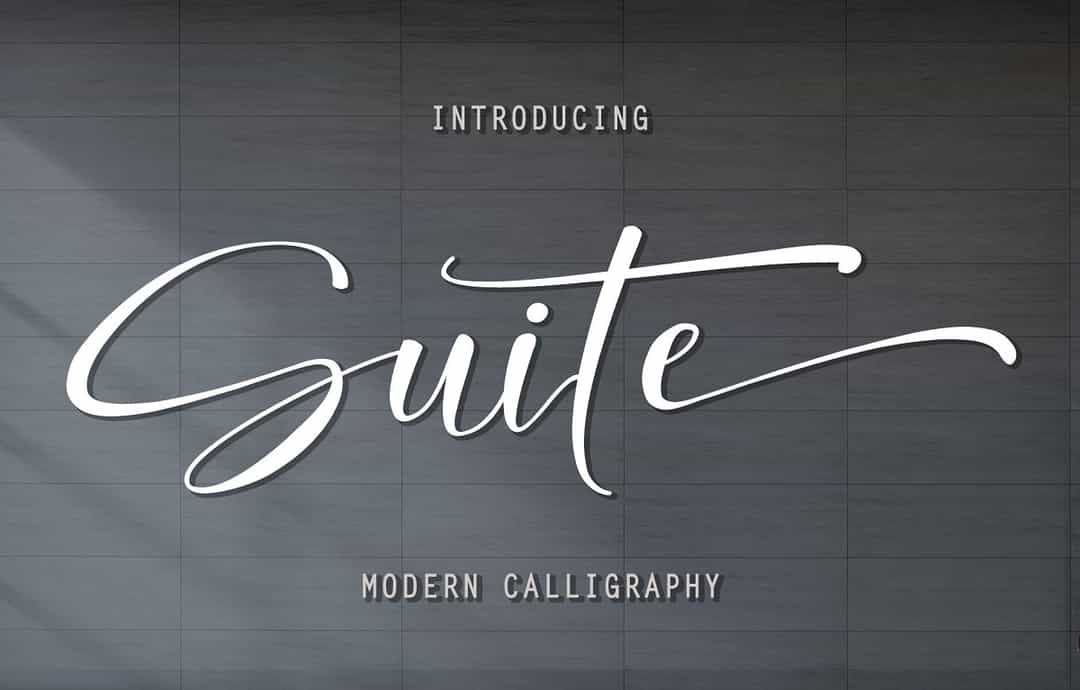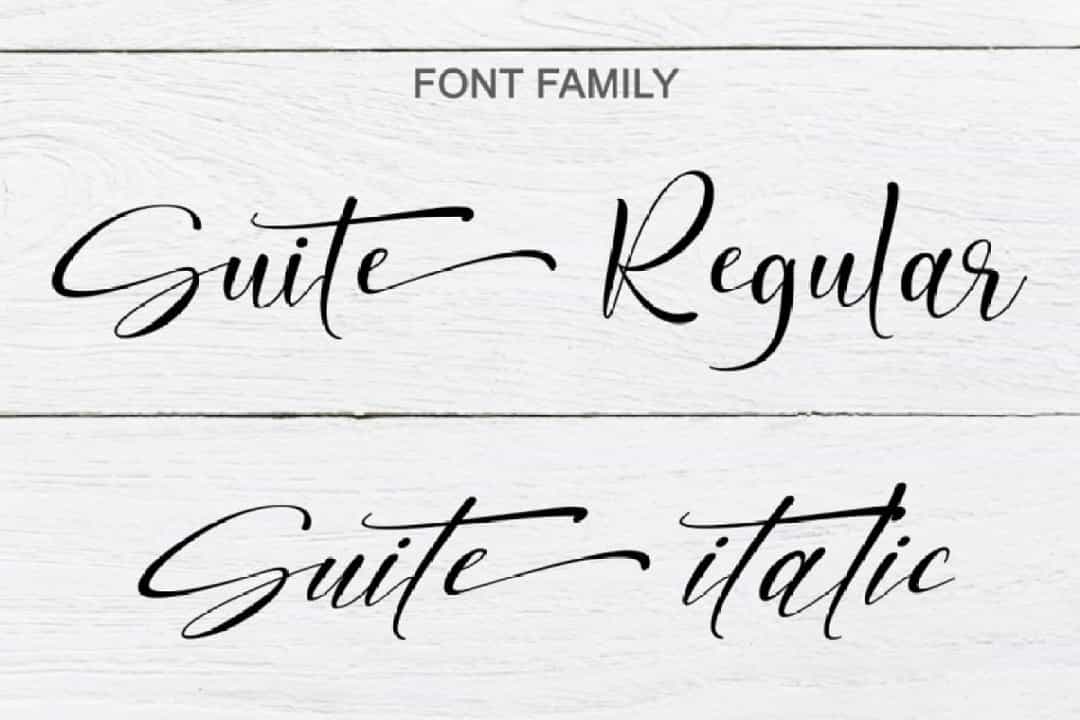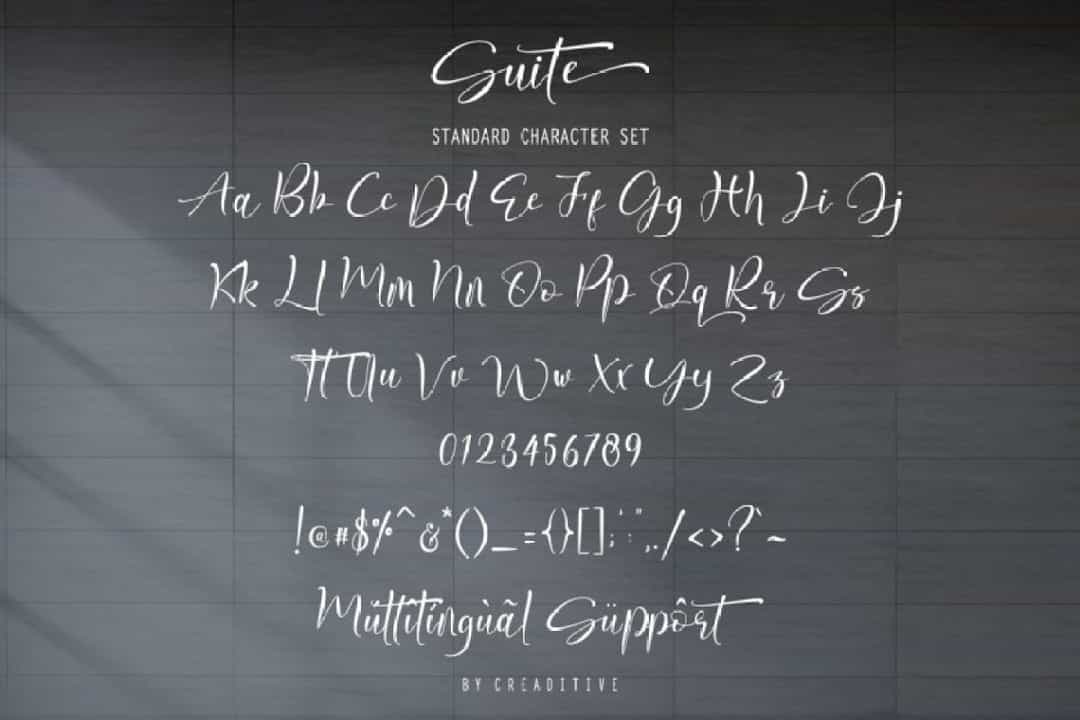
Discover Suite Font, part of the Calligraphy collection—a versatile and unique font perfect for adding a personal touch to your projects. Download it for free and enjoy crafting designs with style, from invitations to social media posts. This font is available exclusively for personal use, giving you the freedom to create without limits. Unlock your creativity with Suite Font today!
Suite is an exquisite calligraphy font. It lends itself perfectly to wedding invites, invitations book covers headings quotes greeting cards business cards logos and all designs which need natural feel.